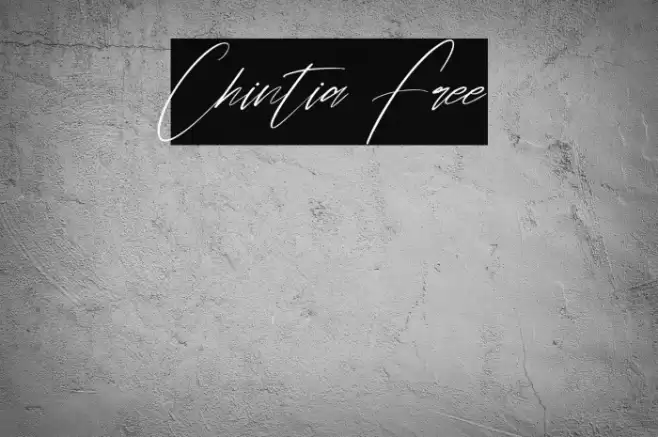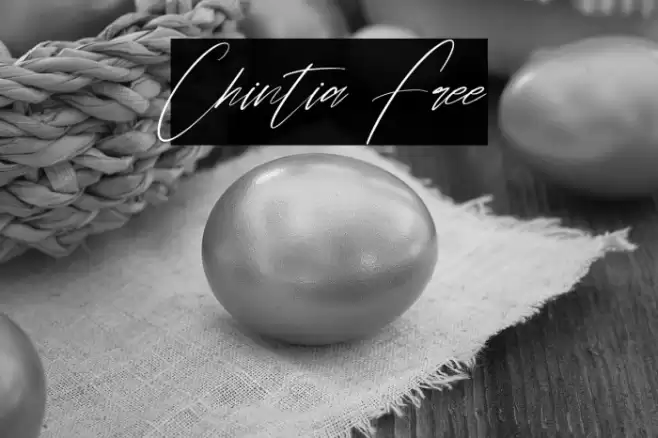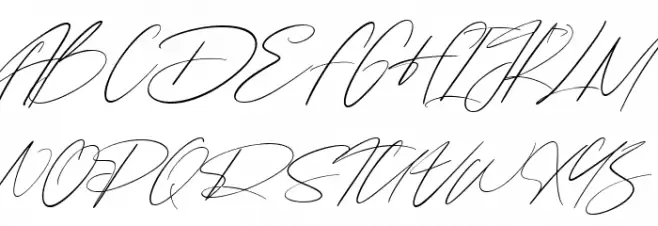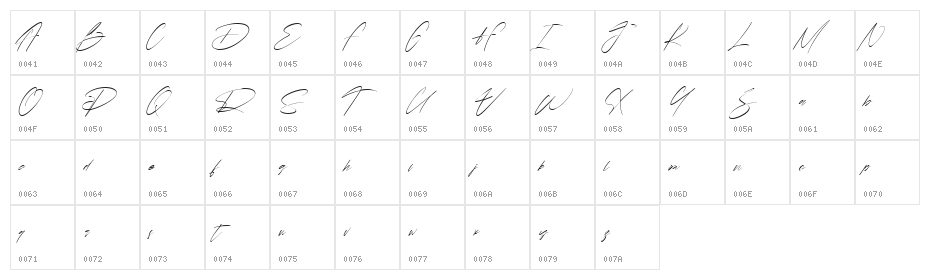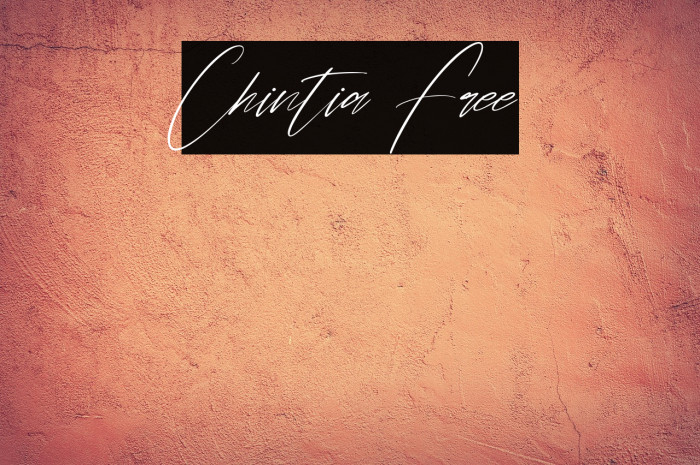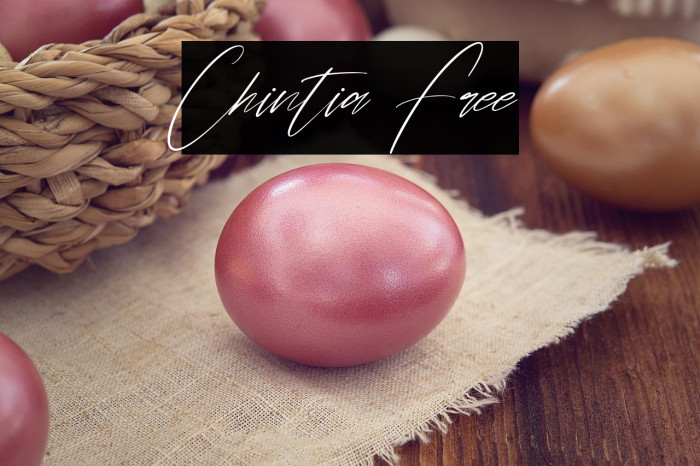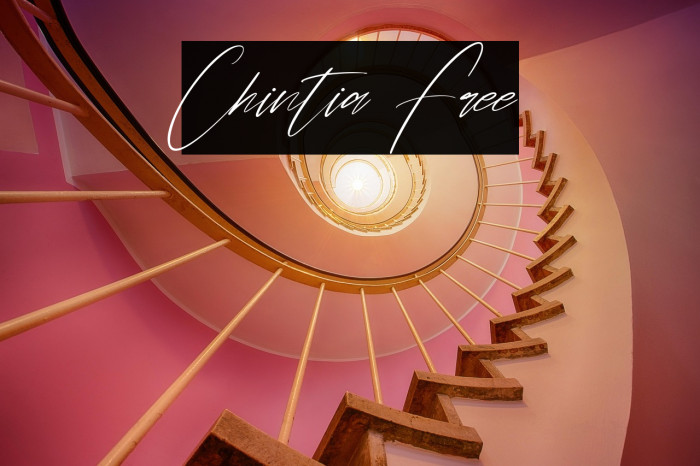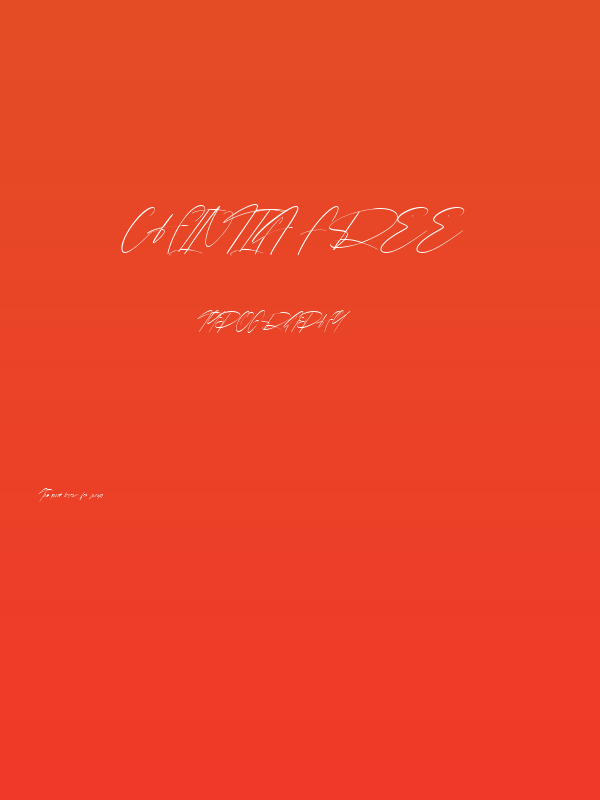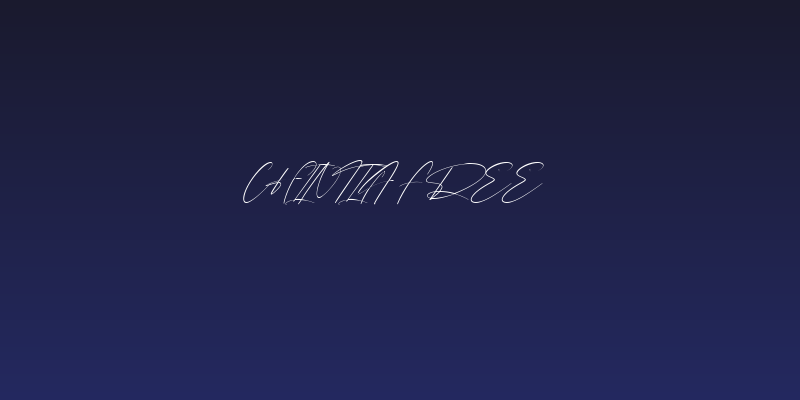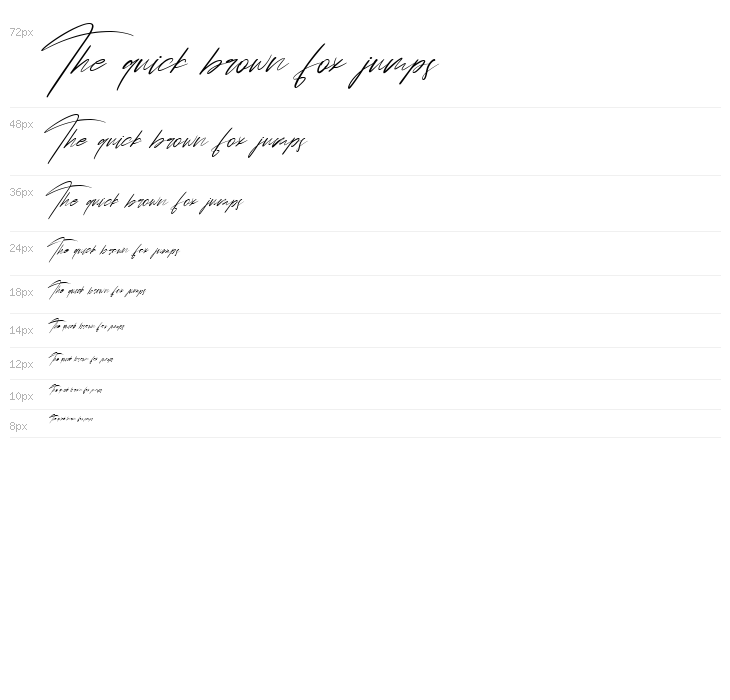
Chintia Free Font
Chintia Free Description
This font features an elegant and flowing script style, characterized by its thin, delicate strokes and graceful curves. The letters are interconnected, creating a sense of fluidity and movement. The uppercase letters are particularly ornate, with sweeping lines and loops that add a touch of sophistication. The lowercase letters maintain a consistent style, complementing the uppercase with their own subtle flourishes. This font exudes a sense of elegance and refinement, making it ideal for projects that require a touch of class and sophistication. The overall appearance is both modern and timeless, suitable for a variety of design applications.
An elegant, flowing script font with delicate strokes and graceful curves from Regular fonts.
- Font: Chintia Free
- Proposed Projects: Ideal for wedding invitations, elegant branding, personal stationery, and upscale packaging.
- Weight: Light
- Character Spacing: Tight
- Overall Style: Elegant, Modern
- Use Case: Logos, Invitations, Decorative text